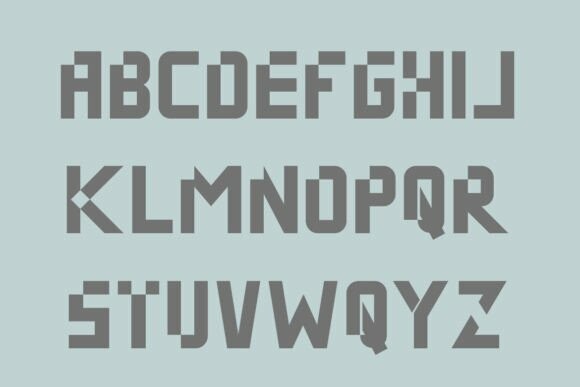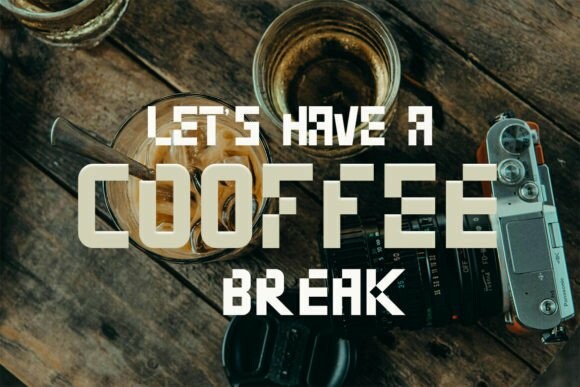
Katerina Font
Katerina Font is a modern cool and bold display font. This font is ideal for writing magazine, photography, banner, poster, cover, magazine, logo, web designs, techno, fashion, business cards, or pretty much anything else that requires a modern and futuristic touch.